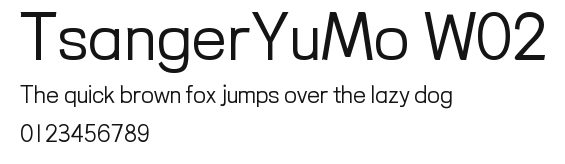
TsangerYuMo W02 Preview
• Font Name: TsangerYuMo W02
• Full Font Name: TsangerYuMo W02
• Designer: Beijing Tsanger Character Technology Co., Ltd.
• Manufacturer: Beijing Tsanger Character Technology Co., Ltd.
About TsangerYuMo W02.ttf
TsangerYuMo W02.ttf is a modern, elegant sans-serif font designed for ultimate readability and visual harmony. Perfect for branding, headlines, web design, and print materials.